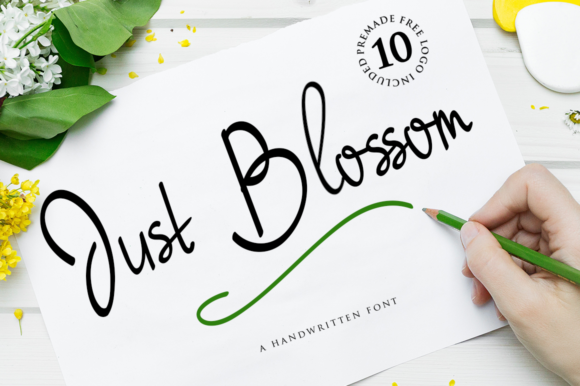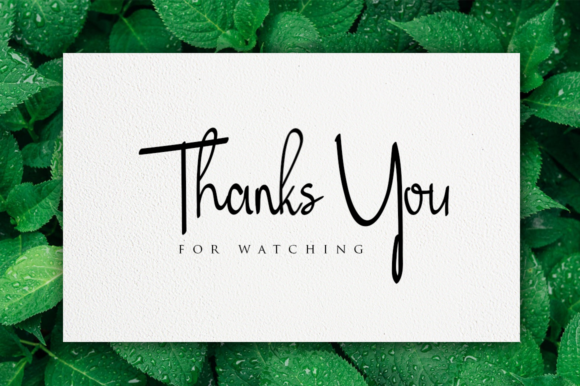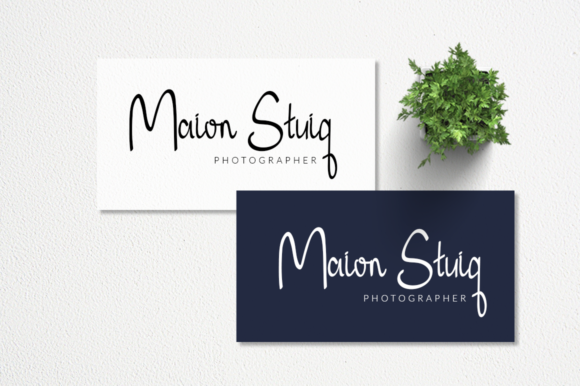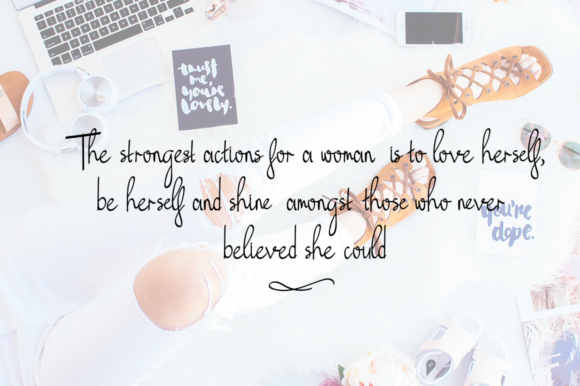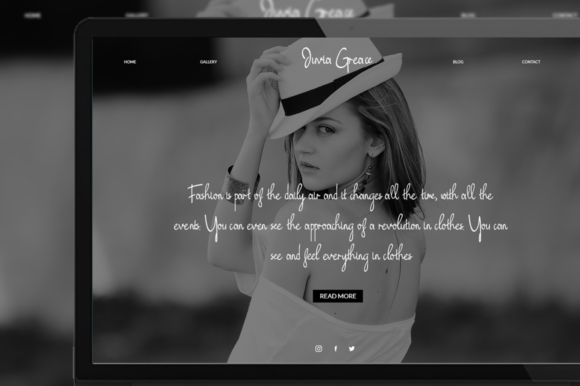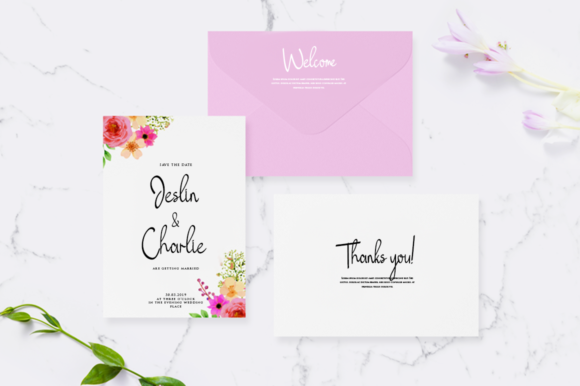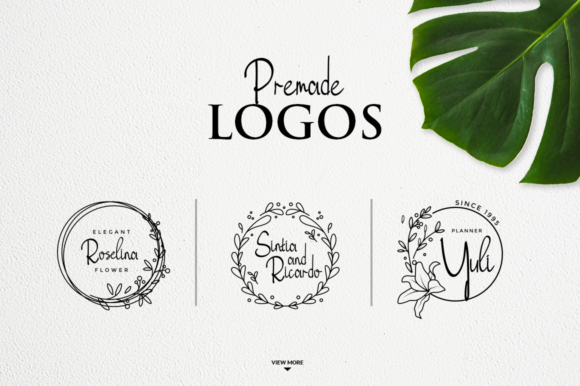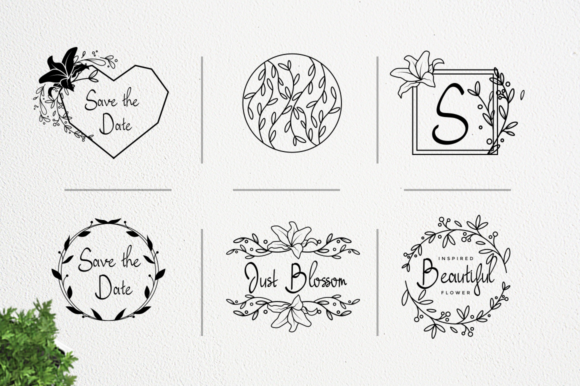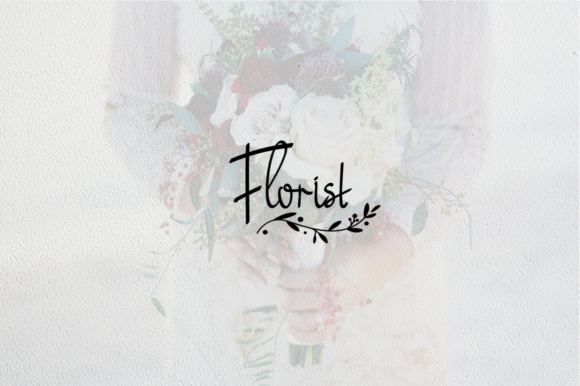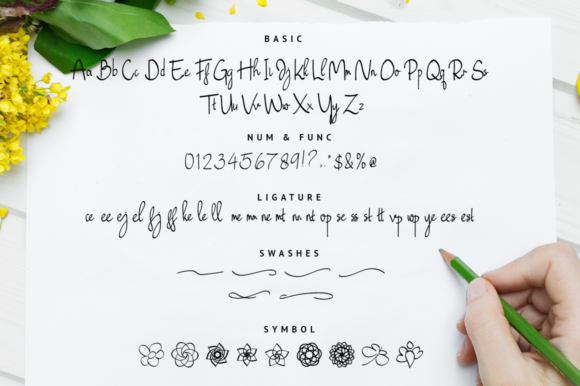
HomeScript FontsJust Blossom Font Script Fonts Just Blossom Font FacebookXPinterestWhatsApp Just Blossom Font Poster 2 Just Blossom Font Poster 3 Just Blossom Font Poster 4 Just Blossom Font Poster 5 Just Blossom Font Poster 6 Just Blossom Font Poster 7 Just Blossom Font Poster 8 Just Blossom Font Poster 9 Just Blossom Font Poster 10 About Just Blossom Font Just Blossom is an incredibly sweet script with a natural and smooth style. DOWNLOAD ON CREATIVE FABRICAThis font is sold and delivered by Creative Fabrica. Font Canyon may earn a commission if you buy through this link. People also explored Larinda Font Franco Font Baby Tokyo Font Angelicaps Font Enjoy and Relax Font Fussena Font Filia Font Marydale Fenthy Wahuky Font 383 0 TagsJust Blossom Font Previous articleCute Olaf FontNext articleZapan Script Font LEAVE A REPLY Cancel reply Comment: Please enter your comment! Name:* Please enter your name here Email:* You have entered an incorrect email address! Please enter your email address here Website: Save my name, email, and website in this browser for the next time I comment. Personal Use Free Nesto Copper 42 Font Personal Use Free Read more about this font Single Sleeve Personal Use Free Read more about this font Bukhari Script Personal Use Free Read more about this font Awkward Personal Use Free Read more about this font BLOG How to Cut Any Font on Cricut: Convert a Font to SVG (Free) Turn any font into a clean SVG so it cuts crisp on Cricut - a quick 3-step workflow using a free font-to-SVG tool. The 10 Best Handwriting Fonts to Add Personality to Your Designs Exploring Font Trends Free Fonts Risk: Why Free Fonts Can Be Dangerous for Designers